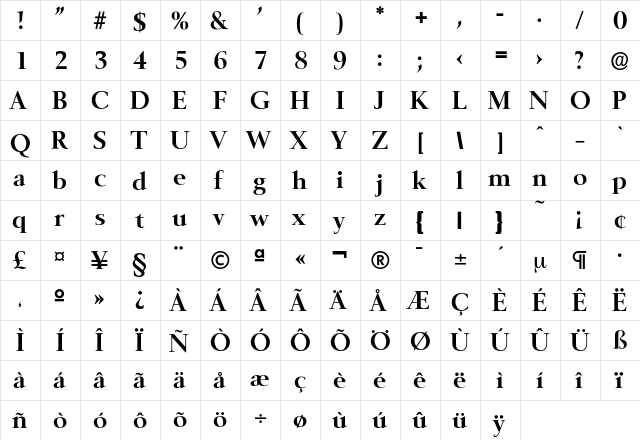
Belfast-Bold Regular
Design Context for Belfast-Bold Typeface
Belfast-Bold offers clean, dependable letterforms without strong stylistic allegiance, making it a practical choice for designers who need flexibility. Its bold stroke weight gives it real presence on the page.
Pro Tip: Use Belfast-Bold in both headline and body roles to test its range before committing to a single application.